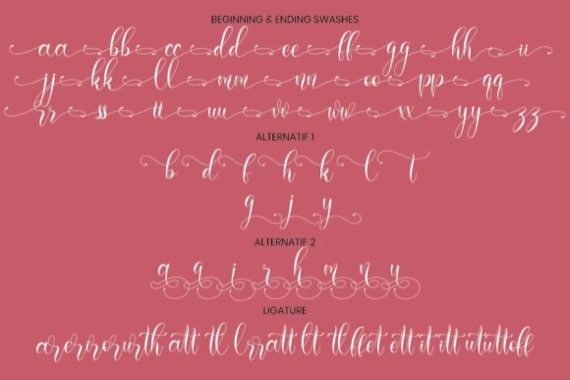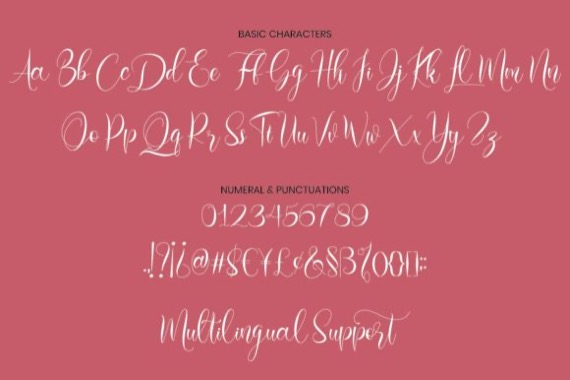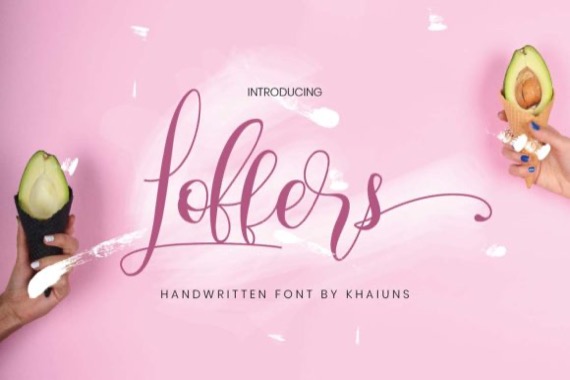
Loffers Font
Loffers is a friendly and familiar handwritten script font that was created and released by Khaiuns, it feels incredibly elegant and flowing. It looks stunning on wedding invitations, thank you cards, quotes, greeting cards, logos, business cards and every other design which needs a handwritten touch. It features a varying baseline, smooth lines, gorgeous glyphs and stunning alternates.